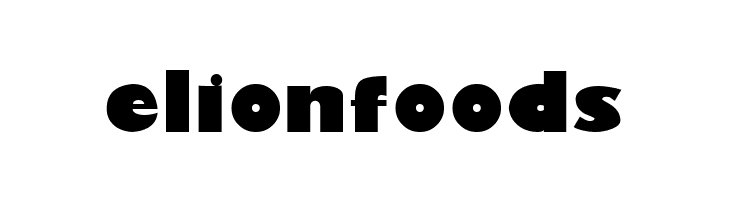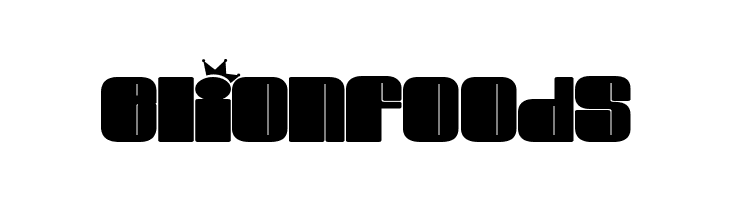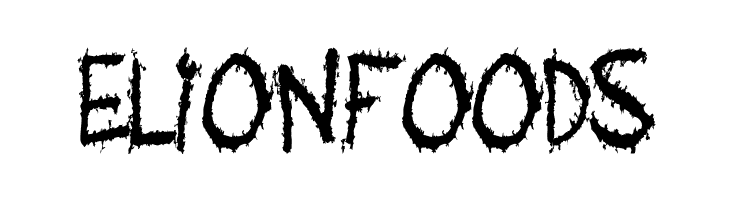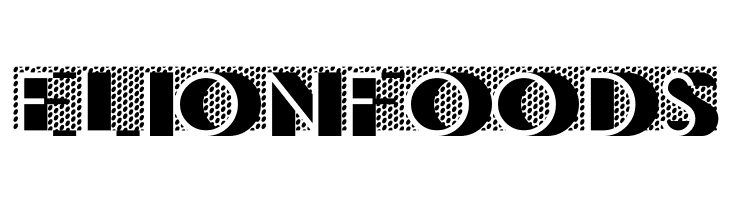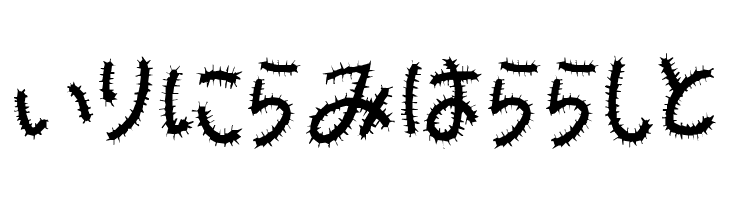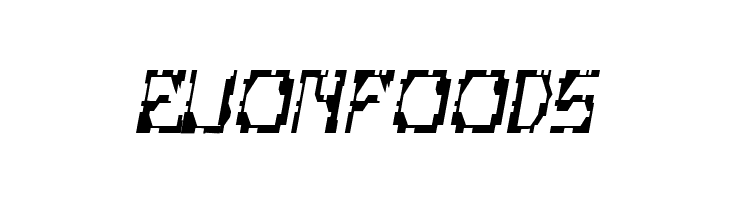
( Fonts by Ryan Splint )
A bold, gothic-style font with jagged edges and decorative flourishes, perfect for dramatic themes.
A bold, geometric, and decorative typeface with a modern, futuristic look.
( Fonts by Paul Reid - tracertong.co.uk )
Bold, uppercase sans-serif letters in solid rectangular blocks.
A bold, textured font with a rugged, hand-drawn appearance.
( Fonts by www.freakyfonts.de )
A bold, geometric font with blocky, angular letterforms.